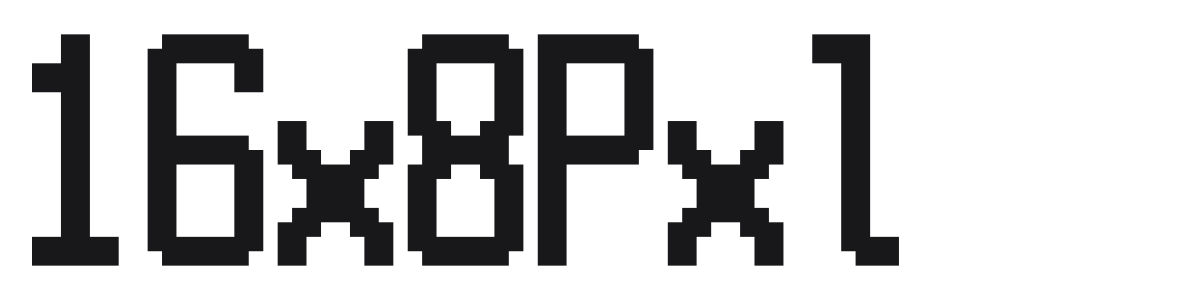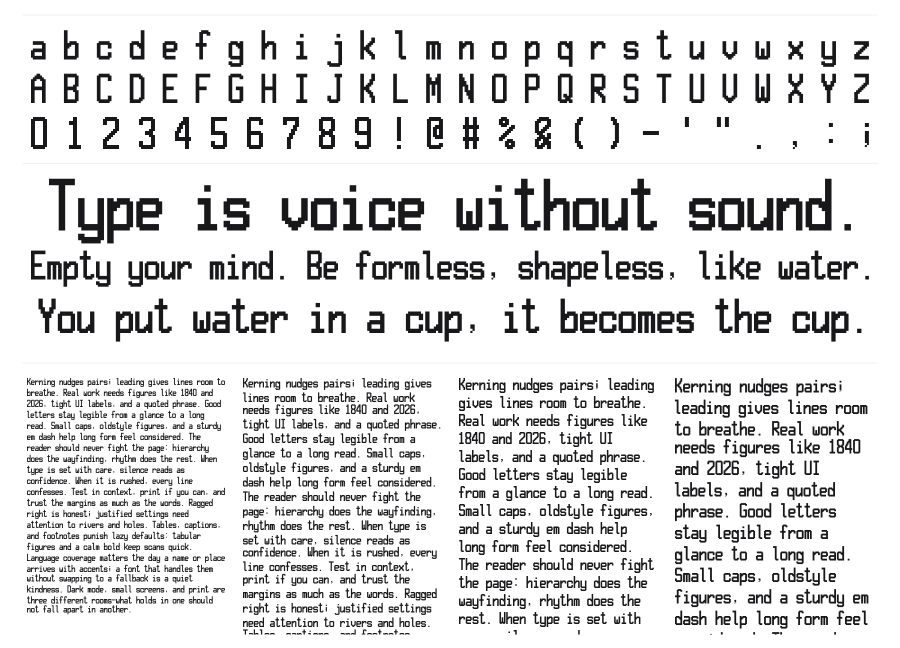
16x8Pxl
16x8PxlL is a chunky bitmap pixel font built on a strict rectangular grid, evoking the character displays of early home computers and arcade machines. Its bold, uniform strokes and squared terminals give it a confident, no-frills presence that works best at small pixel-perfect sizes or scaled up as a retro display face. Available in both monospace and proportional versions with broad glyph coverage including Greek.